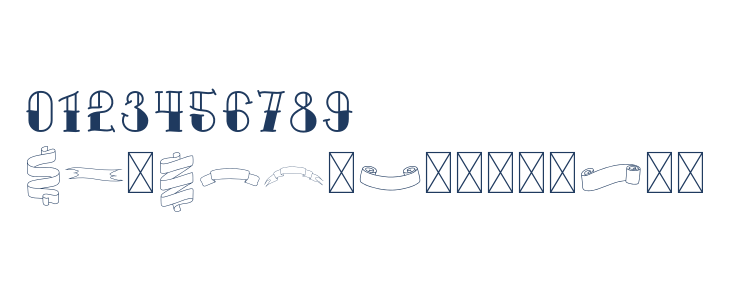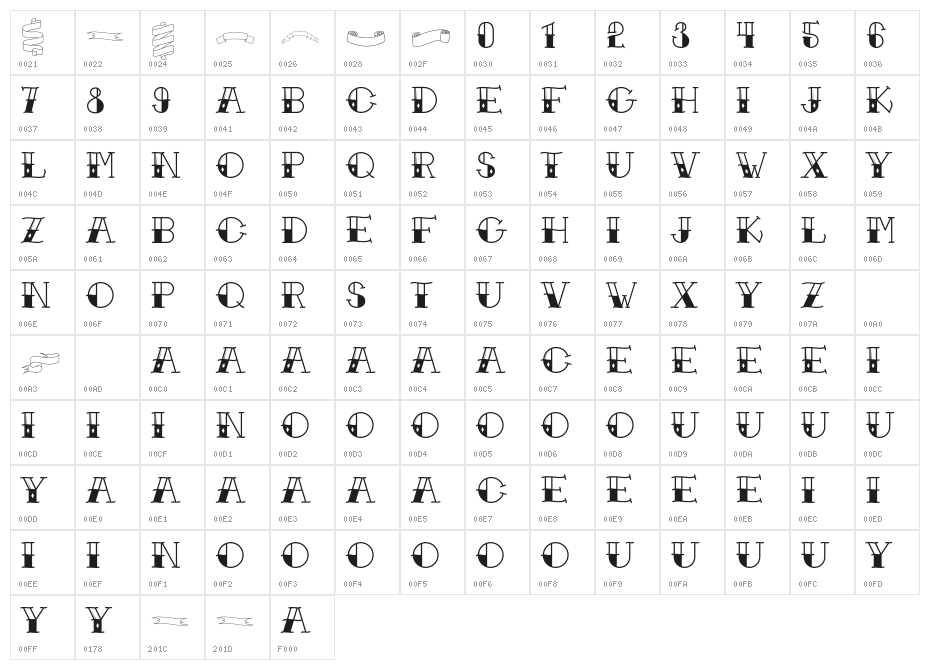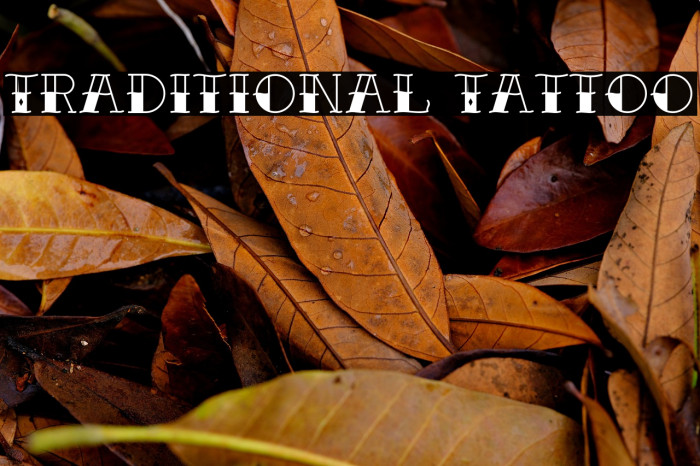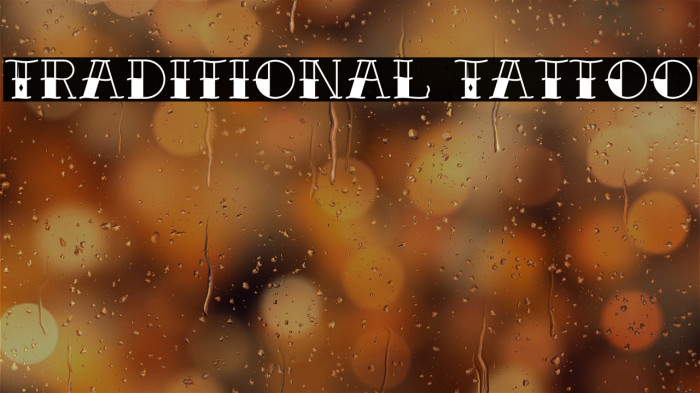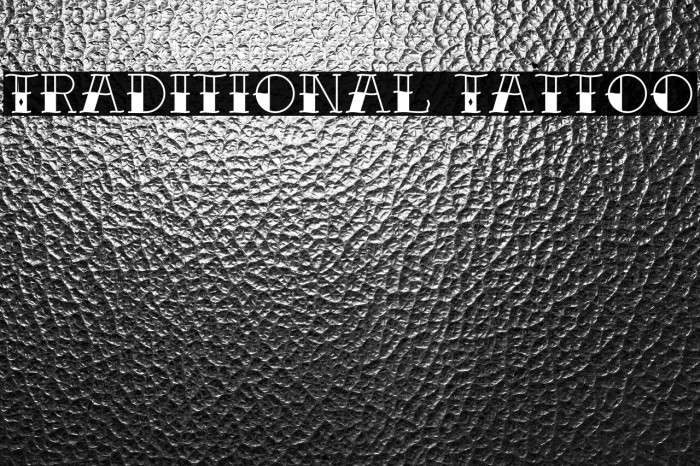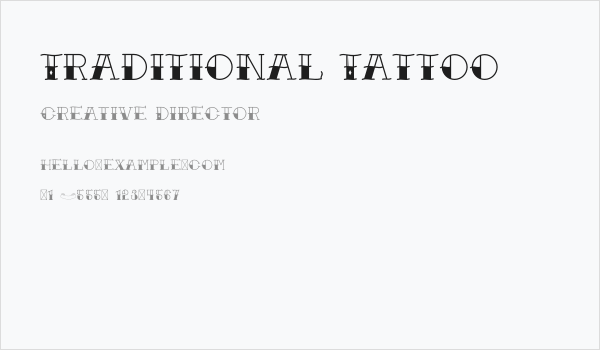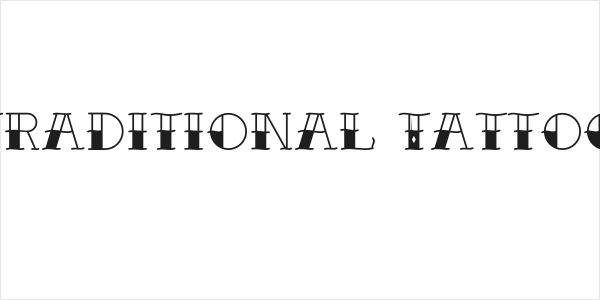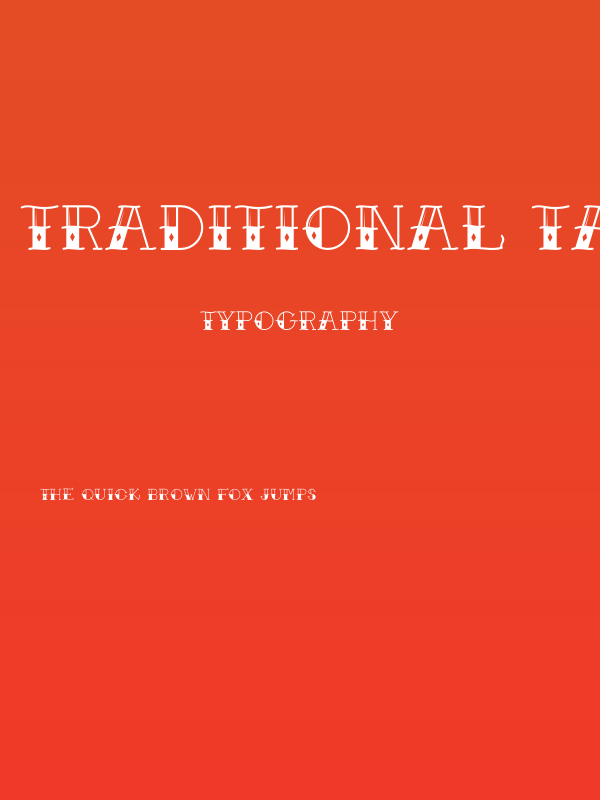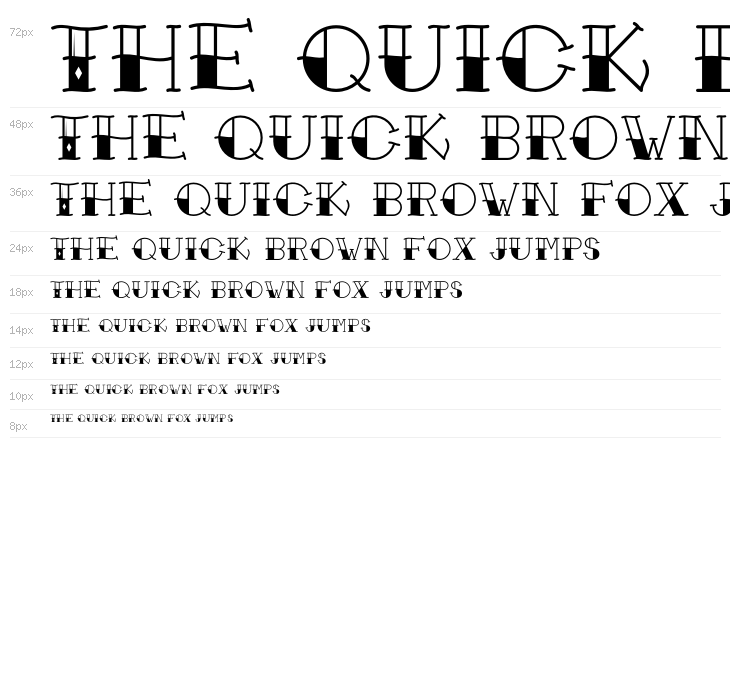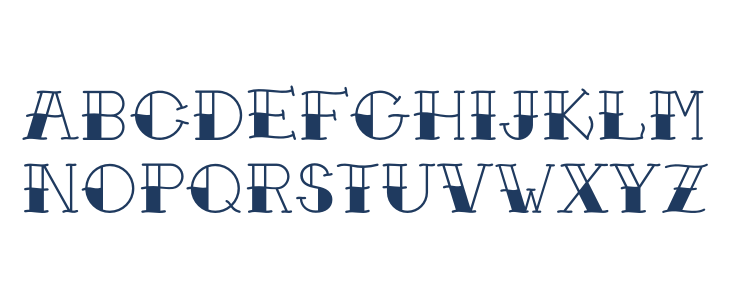
Traditional Tattoo Font
Traditional Tattoo Description
This font embodies a bold and decorative style reminiscent of traditional tattoo art. The characters are characterized by thick, solid strokes with unique embellishments such as arrows and dots, adding a distinctive flair. The uppercase letters are particularly striking, with a strong presence and high contrast between thick and thin lines. The numbers follow a similar style, maintaining the bold and decorative theme. The font includes special characters that complement its overall aesthetic, making it suitable for creative and artistic projects. Its unique design elements make it stand out, capturing attention with its vintage and edgy appeal.
| Overall Style | Vintage, Decorative |
| Proposed Projects | Ideal for tattoo designs, posters, branding, and any project requiring a bold, artistic touch. |